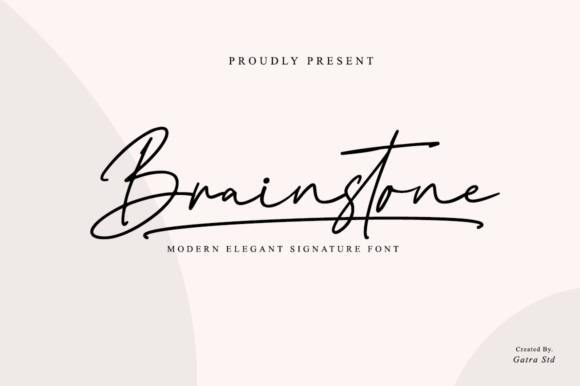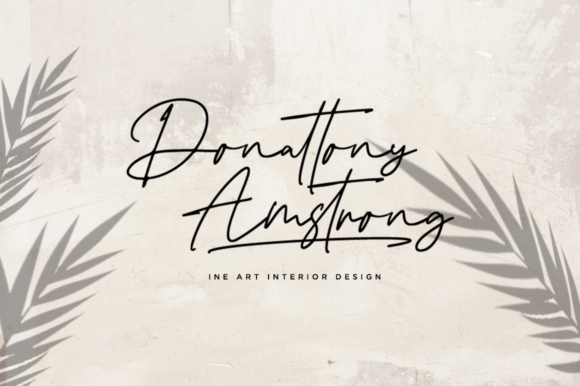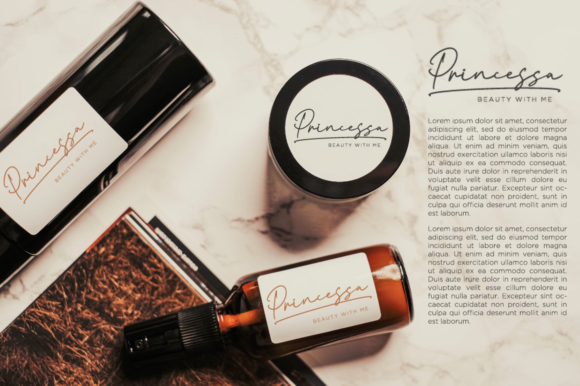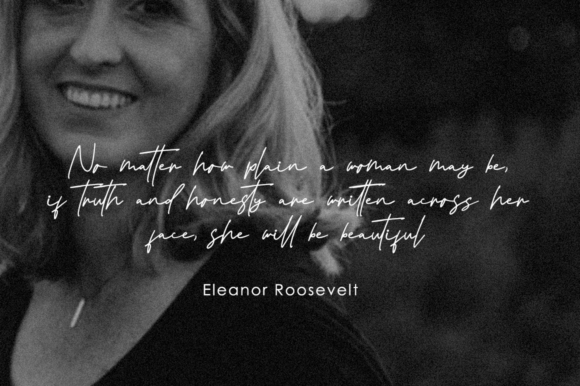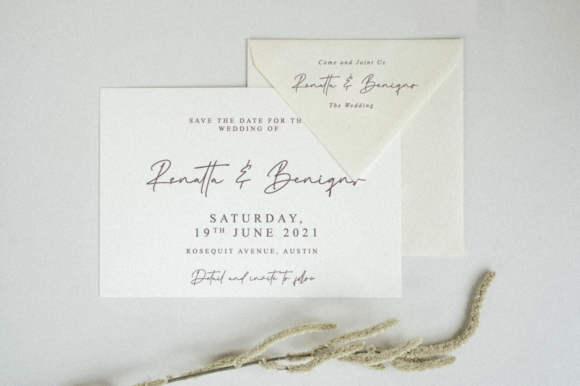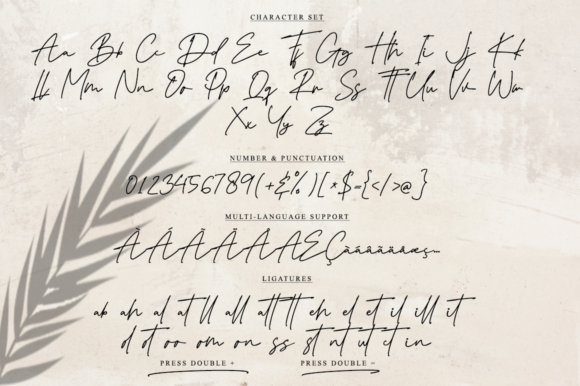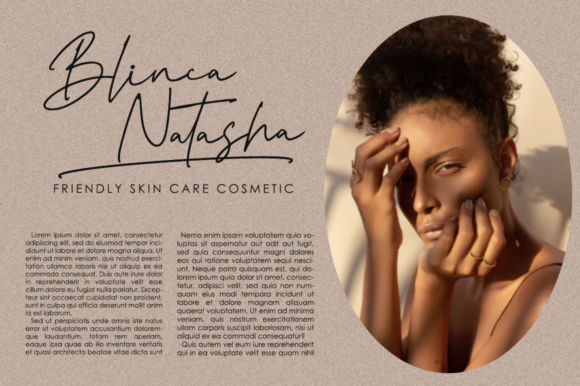
Brainstone Font
About Brainstone Font
Brainstone is a stylish and delicate script font. It has a clean, thin and smooth vibe and it will be a hit for any design that you want to add it to.